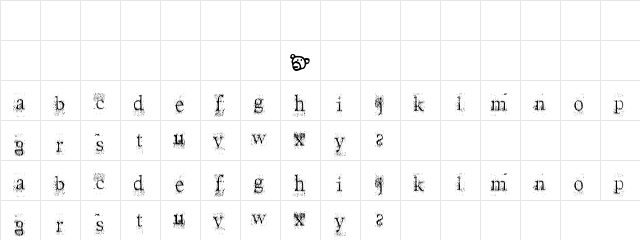
Saladbar Dirty
Design Context for Saladbar Typeface
Saladbar is a composed and adaptable typeface that performs quietly and consistently across a wide range of design contexts.